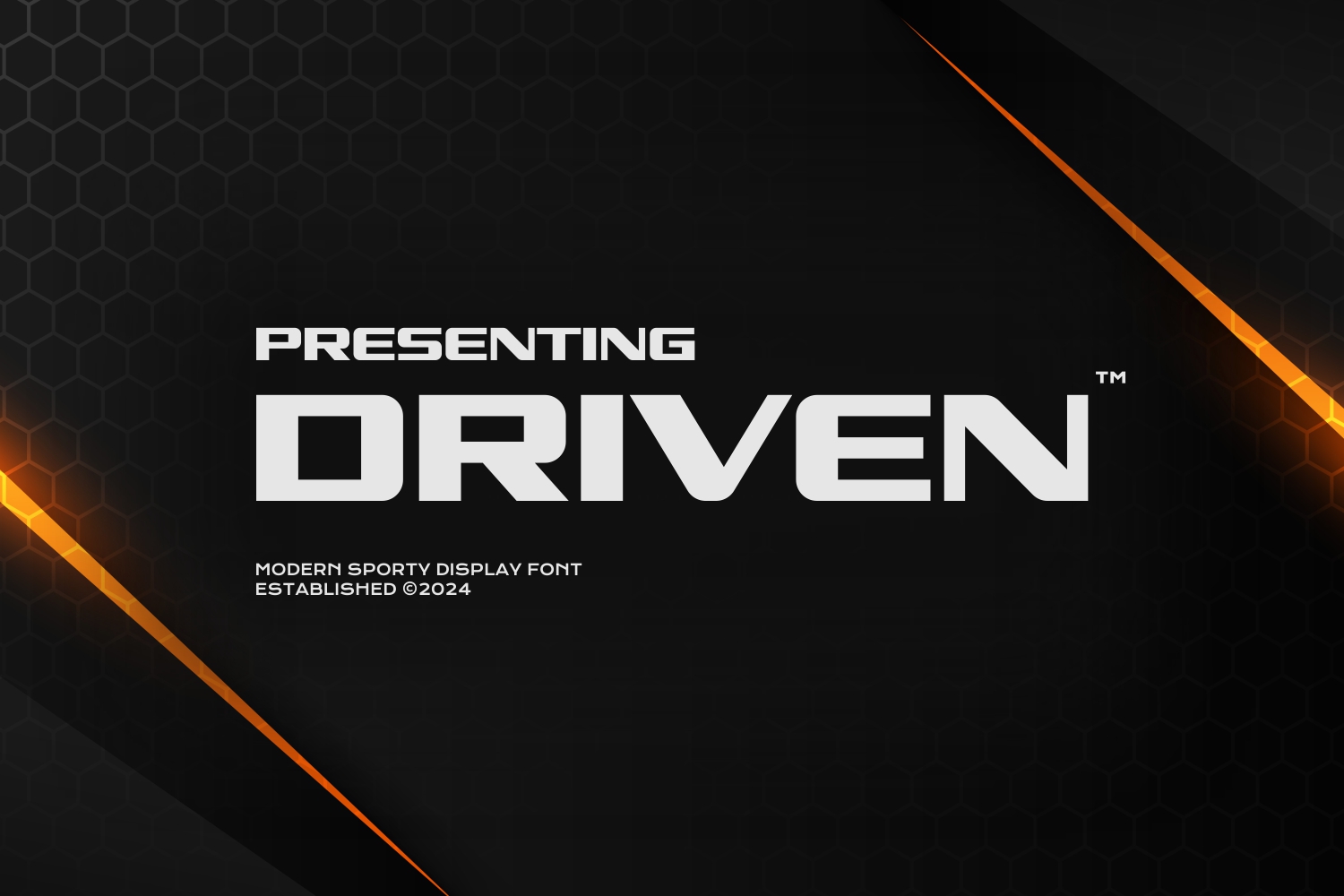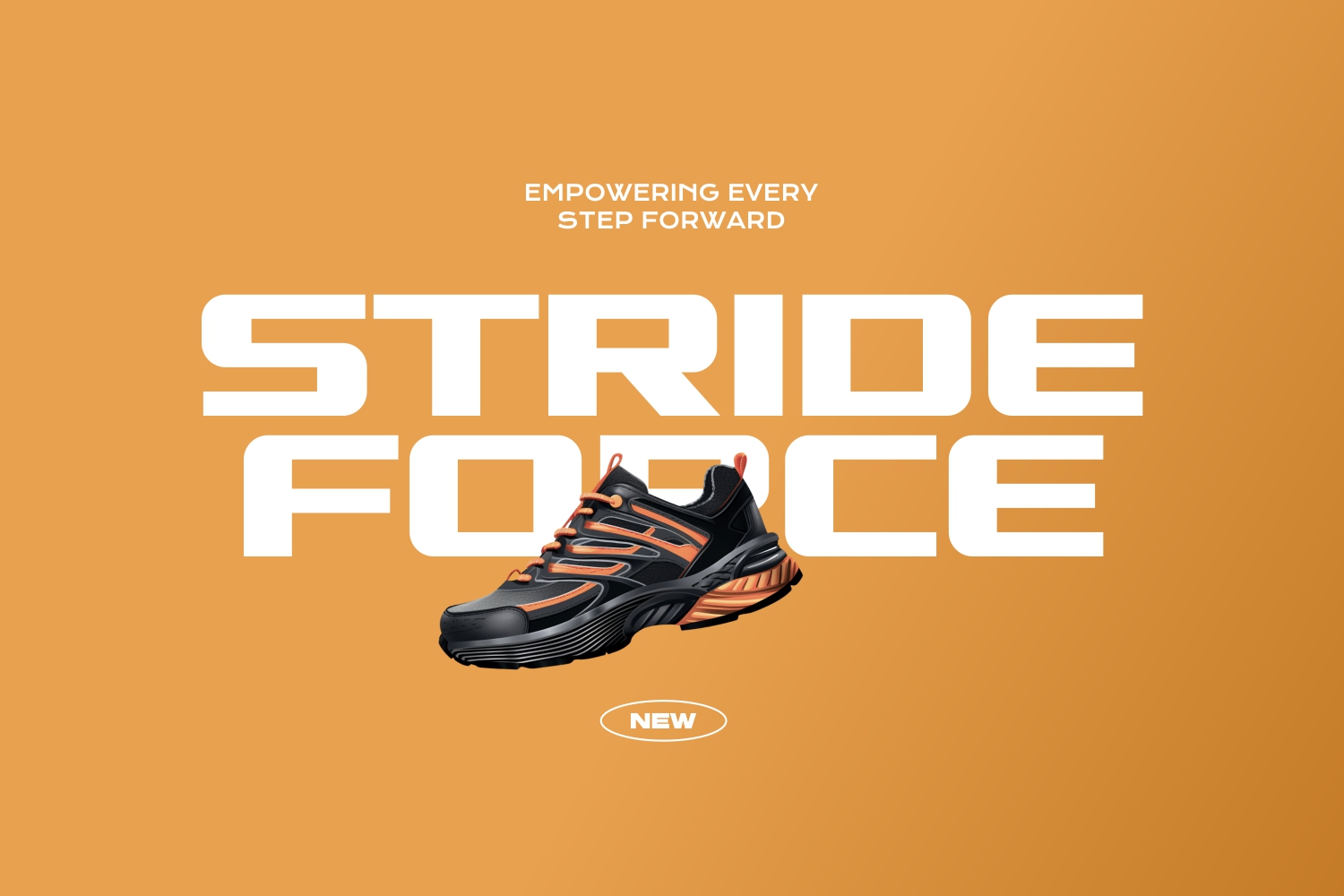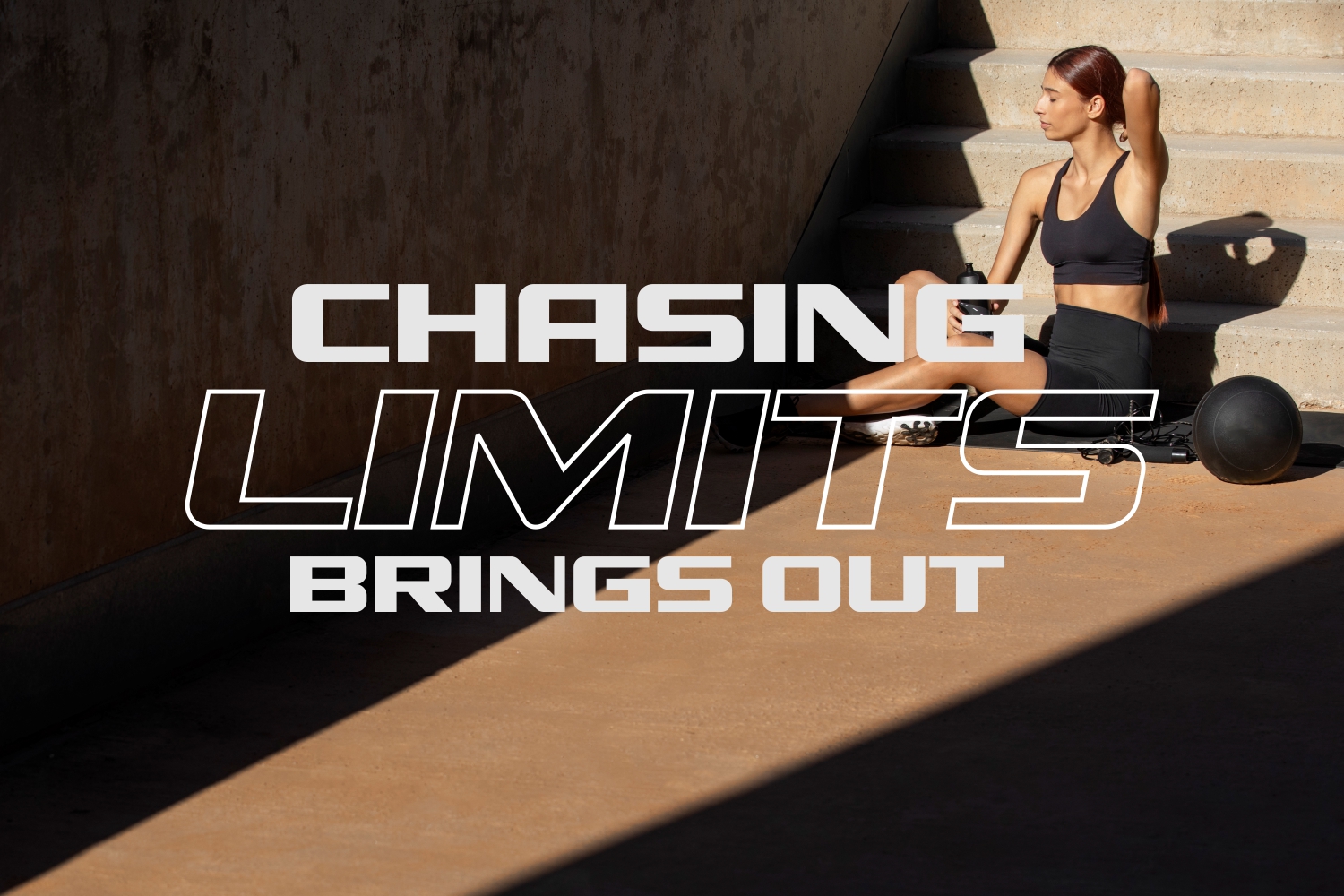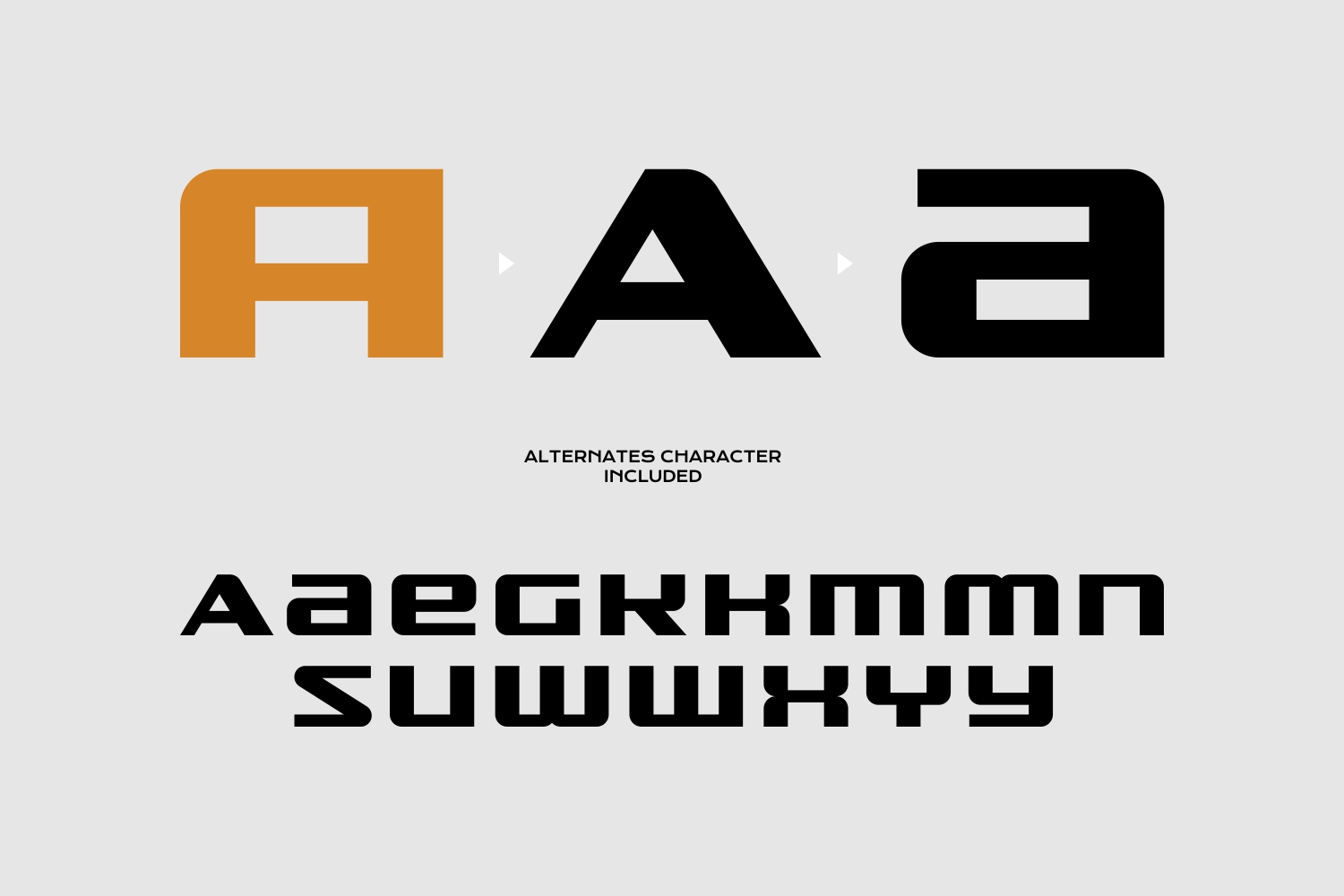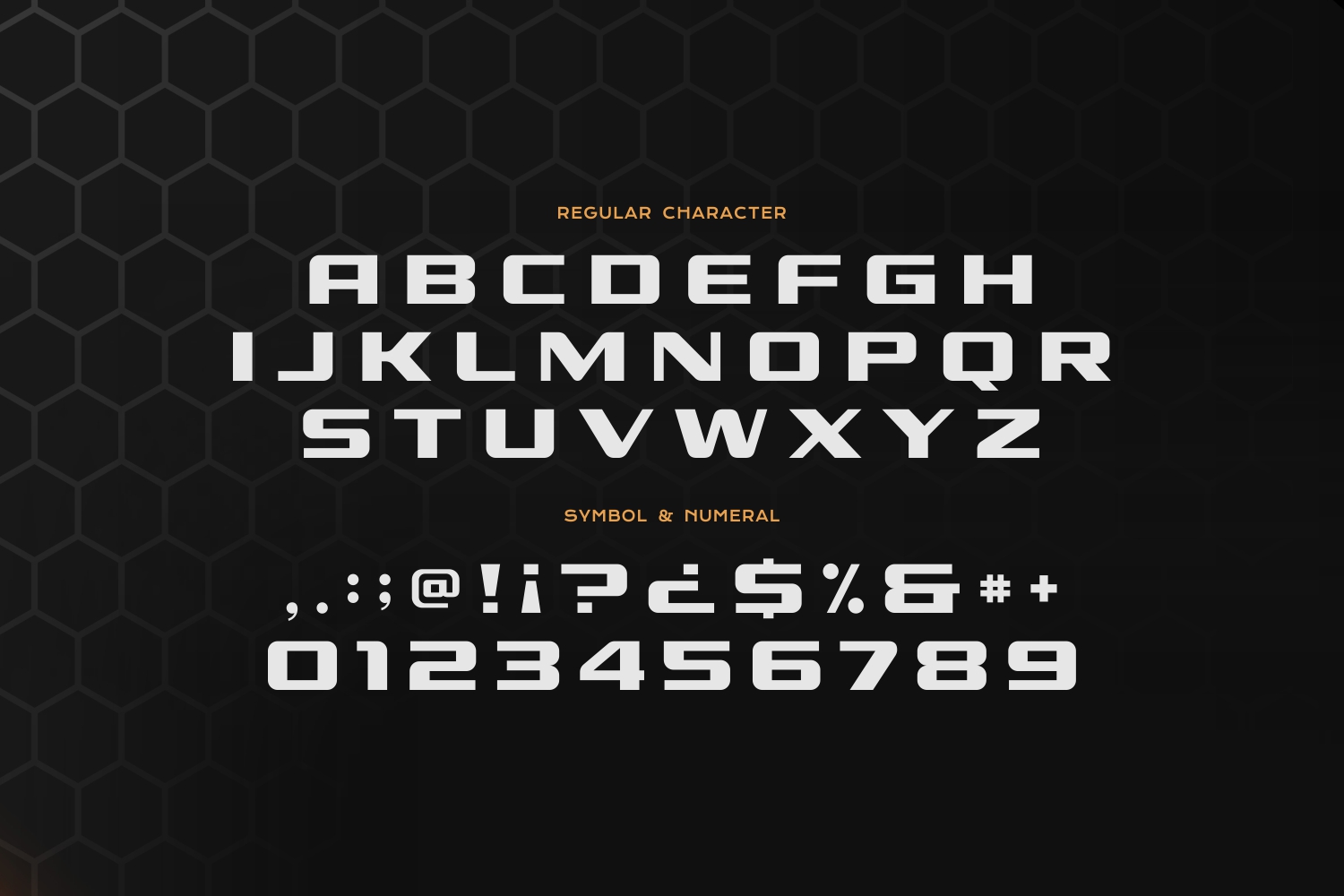
Driven is a modern sporty display font designed to radiate strength, speed, and futuristic energy. With bold geometric shapes, squared corners, and precision-cut edges, this typeface captures the essence of high performance and movement. The strong visual impact makes it a perfect fit for athletic branding, sportswear packaging, and powerful headlines that demand attention.
Equipped with alternate characters and a complete set of symbols and numerals, Driven offers flexibility for a wide range of creative applications. Whether you’re designing posters for a tech-driven event, branding for sports products, or dynamic social media graphics, this font delivers a bold and energetic statement every time.
Driven
Warisand Studio